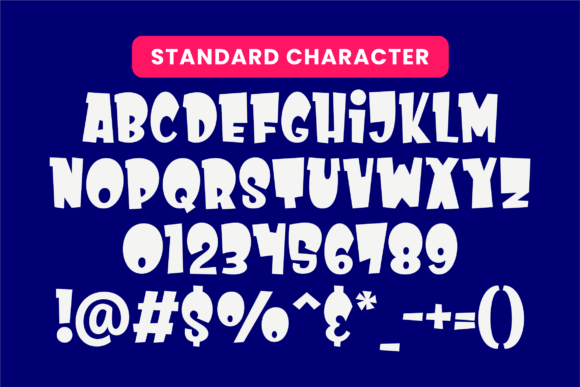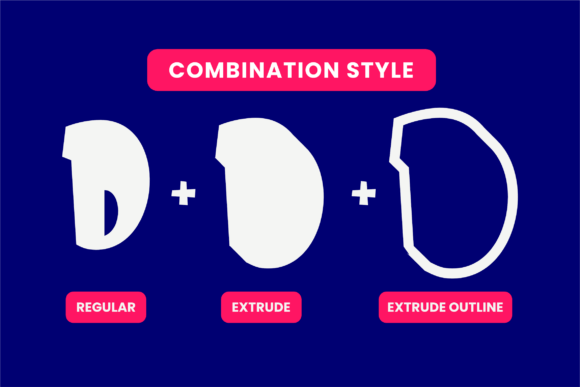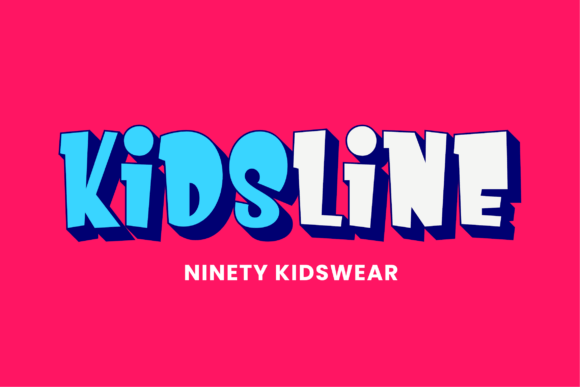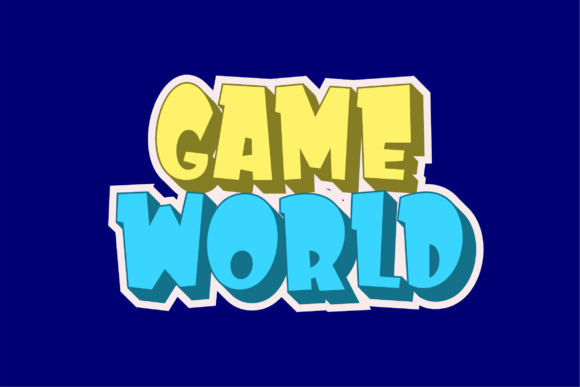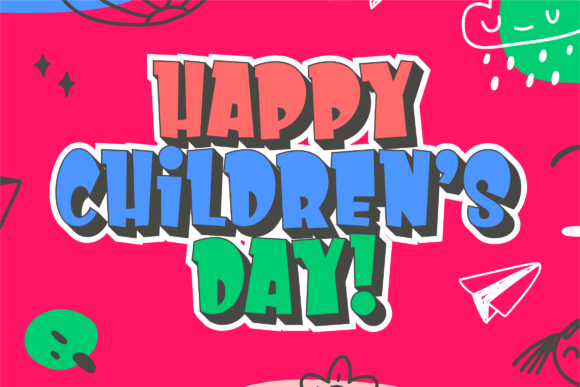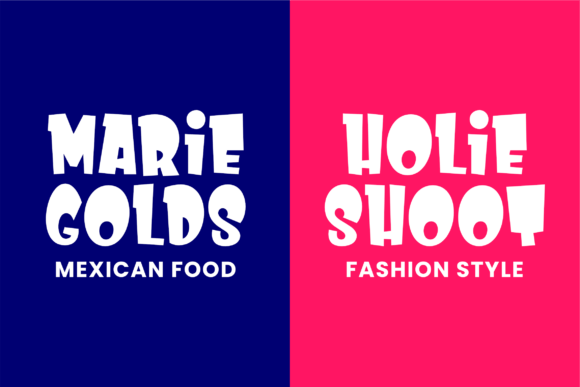
Introduction to Little Champs Font Font
Fonts play a crucial role in design, and the Little Champs Font font is a typeface that brings both character and versatility to any project. Whether you’re working on a branding project, a website, or a print design, the Little Champs Font font offers a unique style that can elevate your work.
“Little Champs” is a playful and bold layered kids’ font perfect for adding a cheerful and energetic vibe to any design.
Its quirky letterforms and fun style make it ideal for children’s books, toys, party invitations, and educational materials Designed to captivate young audiences, this font exudes a vibrant personality and a sense of adventure.
Key Features of Little Champs Font Font
Why Choose Little Champs Font Font?
The Little Champs Font font is more than just a typeface – it’s a design tool that helps you communicate your message with style and clarity. Its unique character set and versatile design make it suitable for a wide range of applications, from elegant invitations to bold headlines.
With its carefully crafted letterforms and balanced proportions, the Little Champs Font font ensures readability and visual appeal across all mediums.
What makes Little Champs Font font special?
The Little Champs Font font stands out with its unique design, exceptional readability, and versatility across various design applications.